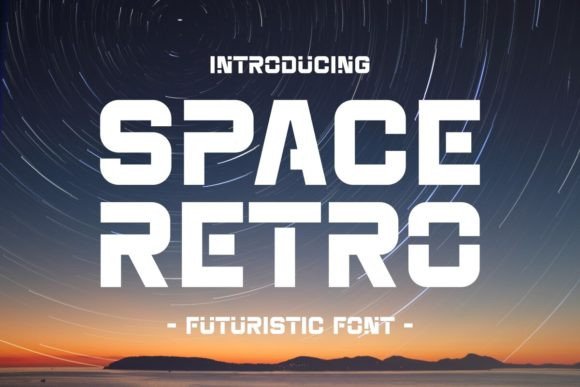
Some fonts do more than simply style words — they create an atmosphere, tell a story, and spark the imagination. Space Retro Font is exactly that kind of typeface: a modern retro futuristic font that blends nostalgia with forward-thinking design.
With its vintage-inspired curves and sleek, space-age lines, Space Retro takes you on a creative journey that feels both familiar and completely new. Whether you’re designing a logo, poster, social media graphic, or even a futuristic brand identity, this font brings style and personality that’s truly out of this world.
✨ What is Space Retro Font?
Space Retro is a bold display font that captures the spirit of mid-century retro design, mixed with a distinctly futuristic twist. It evokes classic sci-fi movies, vintage NASA posters, and old arcade typography — all while keeping a clean, modern edge.
Key features that make Space Retro unique:
✅ Smooth, rounded edges balanced with geometric forms
✅ Nostalgic details reminiscent of 60s and 70s space age design
✅ Futuristic letter shapes perfect for modern branding
✅ Bold lines that make it stand out on both digital and print media
It’s the perfect font for anyone who loves design that feels both vintage and visionary.
🌟 Why Designers Love Space Retro Font
Space Retro is more than a look — it’s a mood. Here’s why creative professionals gravitate toward this typeface:
🚀 Timeless meets modern: Balances retro nostalgia with contemporary minimalism.
🎨 Bold display personality: Designed to catch the eye on posters, logos, and social media.
🛠 Versatile use cases: Ideal for games, films, tech, music, and lifestyle branding.
🖼 Instant atmosphere: Evokes sci-fi, pop culture, and retro-futurism in just a few letters.
📱 High impact on digital screens: Its clean shapes remain crisp and recognizable.
It’s not just a font — it’s a design tool that instantly transports your audience.
🛠 Where Space Retro Font Truly Shines
Thanks to its unique mix of past and future, Space Retro works perfectly across creative and commercial design projects:
🎬 Movie titles & posters: Especially sci-fi, retro thrillers, or space-themed films.
🎮 Video game logos & UI: Fits indie games and futuristic arcades alike.
📸 Social media graphics & stories: Grab attention with bold, space-age typography.
🎵 Music covers & festival posters: Great for synthwave, electronic, and pop albums.
📦 Branding & logos: Especially for fashion, tech startups, or creative agencies.
📚 Book covers: Sci-fi novels, retro anthologies, or futuristic non-fiction.
👕 Merchandise & apparel: T-shirts, hoodies, tote bags, or even enamel pins.
Its strong visual identity helps your message feel playful, modern, and undeniably stylish.
✏ The Retro Futuristic Vibe: Why It Works
Space Retro’s appeal comes from combining two timeless design trends:
1️⃣ Retro style: Nostalgic curves, bold lettering, and vintage details.
2️⃣ Futuristic elements: Geometric shapes, clean lines, and a sci-fi-inspired feel.
This blend feels fresh because it taps into the emotional warmth of nostalgia while staying forward-looking — perfect for brands and creatives who want to feel classic yet contemporary.
✅ Use generous letter spacing: Retro-futuristic fonts look cleaner with more breathing room.
✅ Limit to titles & headlines: Best for short, high-impact words rather than paragraphs.
✅ Add retro colors: Neon gradients, pastel blues, and dusty oranges enhance the nostalgic vibe.
✅ Combine with geometric shapes: Circles, stars, or lines evoke vintage sci-fi posters.
✨ Final Thoughts: Bold Nostalgia for Modern Creatives
Space Retro Font doesn’t just style words — it tells a story.
Its blend of classic retro curves and sleek, futuristic lines creates designs that feel warm, stylish, and impossible to ignore.
Whether you’re building a brand, designing a poster, or adding personality to digital graphics, Space Retro helps your creative ideas stand out with playful nostalgia and modern confidence.